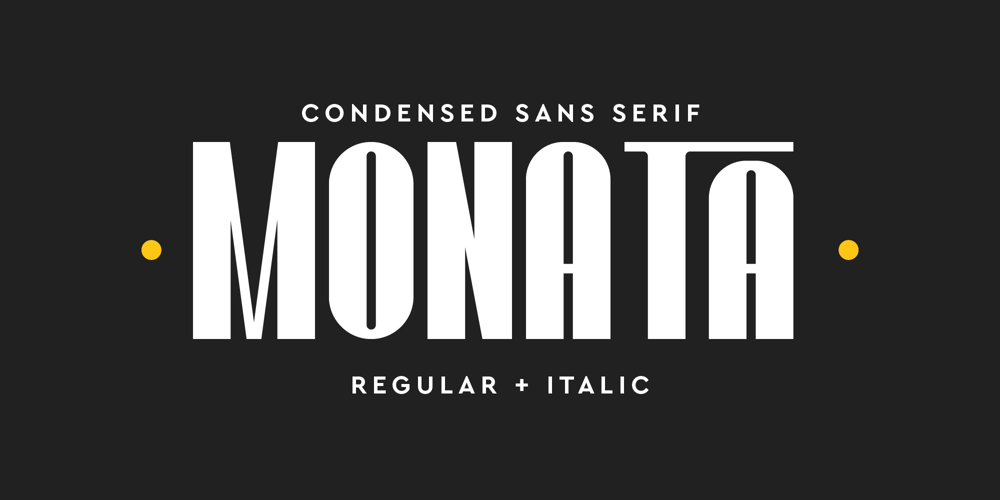
Monata Font Family was designed by Iwan Alwan and published by Artiveko. Monata contains 2 styles and family package options. Monata – a sleek sans-serif condensed styleIdeal for a wide array of applications including magazines, banners, social media, and branding purposes, Monata brings a sophisticated touch to any project. With its condensed design, Monata ensures maximum impact in minimal space, making it perfect for headlines and attention-grabbing text. Whether it’s conveying a bold statement or delivering essential information, Monata excels in delivering clarity and style.Distinguished by its versatile features, Monata offers several alternate glyphs and ligatures, providing designers with creative flexibility to customize their designs. These variations add depth and character to the text, enhancing its visual appeal and ensuring a unique typographic expression.Moreover, Monata boasts multilingual support, enabling seamless communication across various languages and cultures. Whether your audience speaks English, Spanish, French, or beyond, Monata ensures your message is effectively conveyed with clarity and precision.In essence, Monata is more than just a font—it’s a powerful tool for elevating your design projects to new heights. With its condensed sans-serif style, versatile features, and multilingual support, Monata is the go-to choice for designers seeking modernity, functionality, and visual impact in their creations.